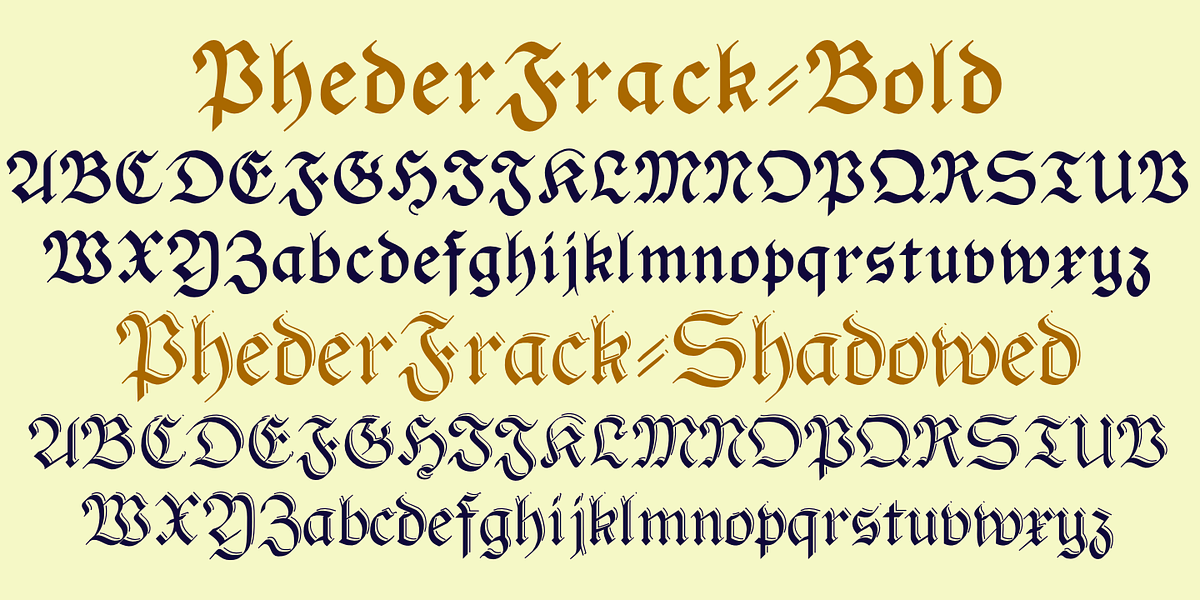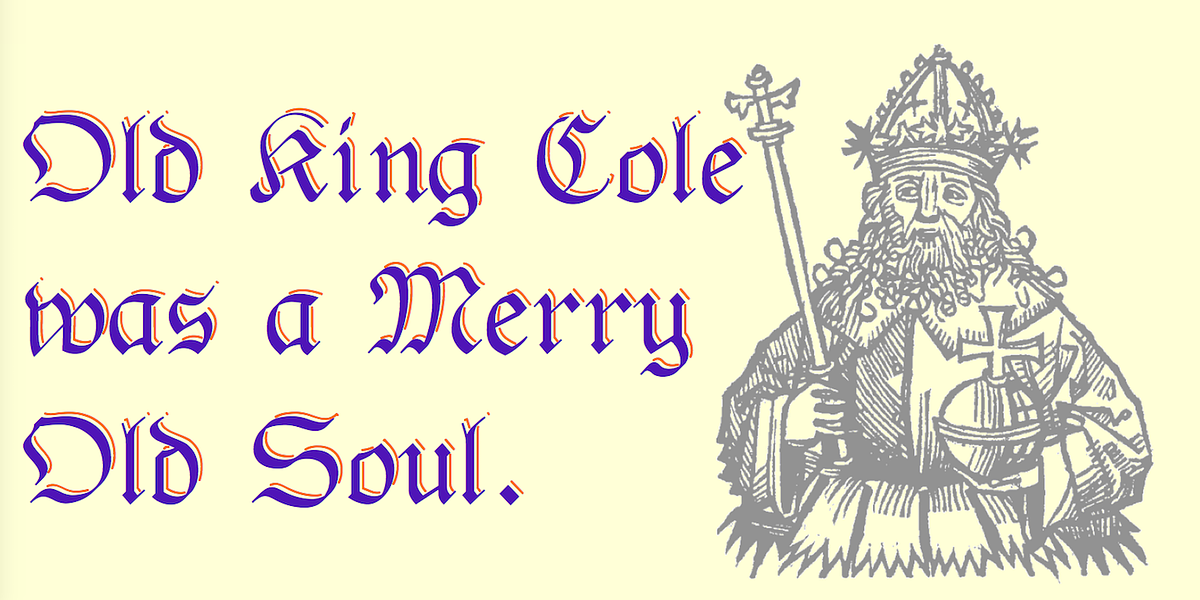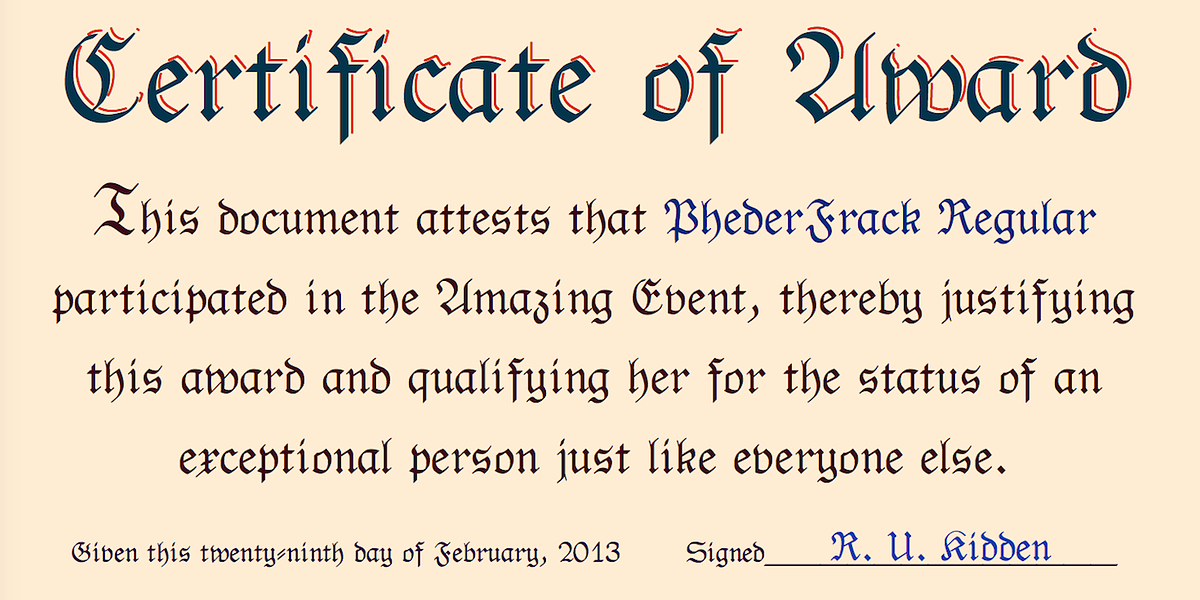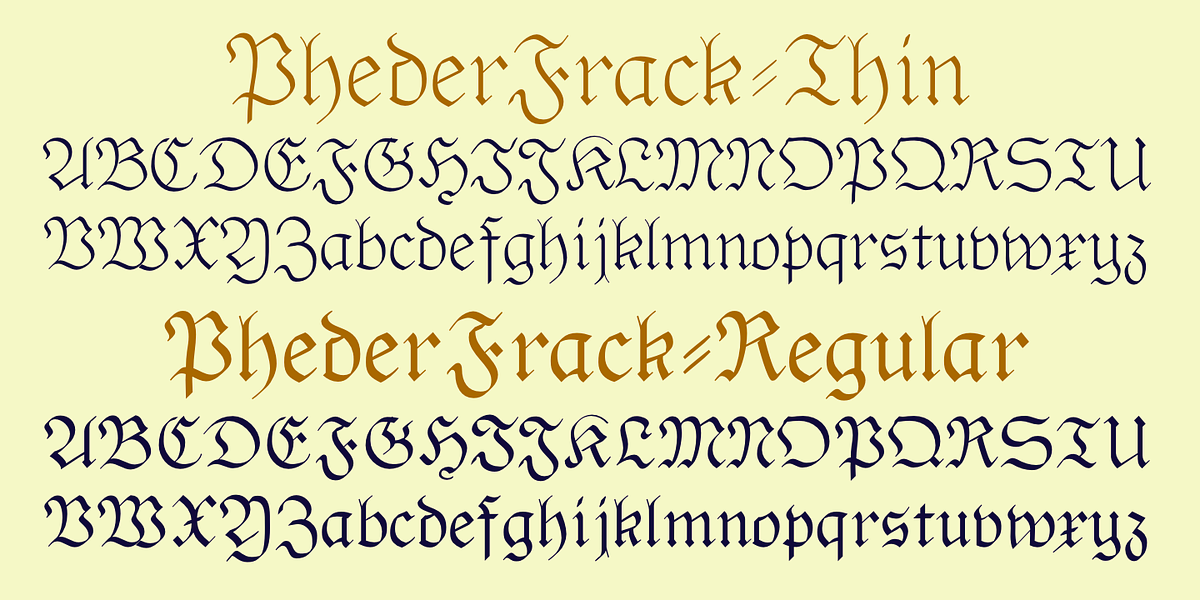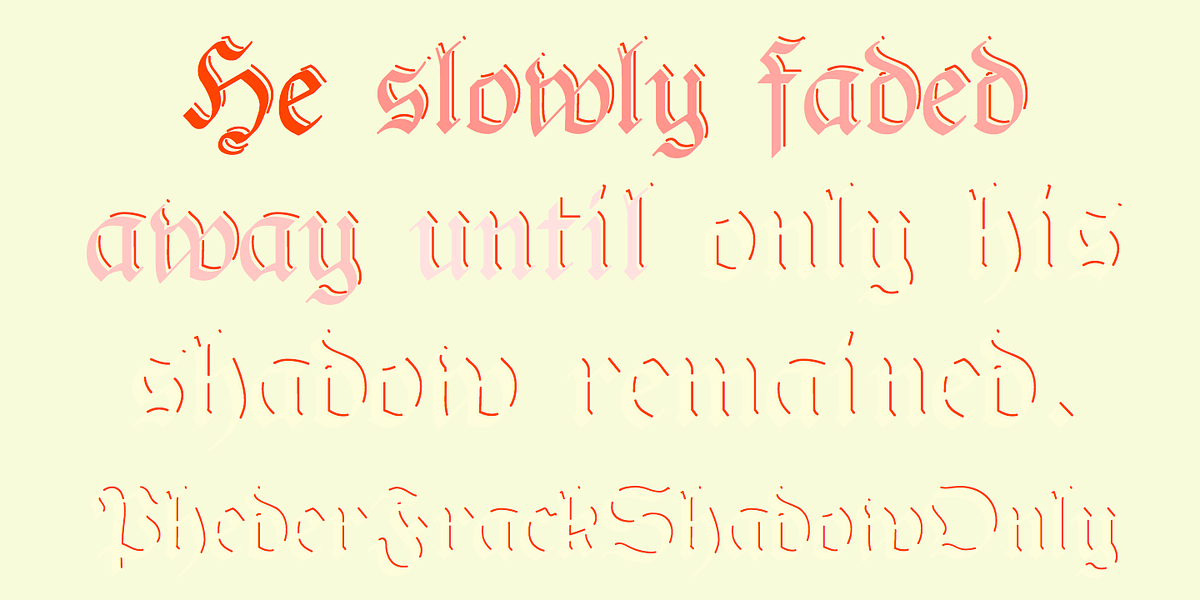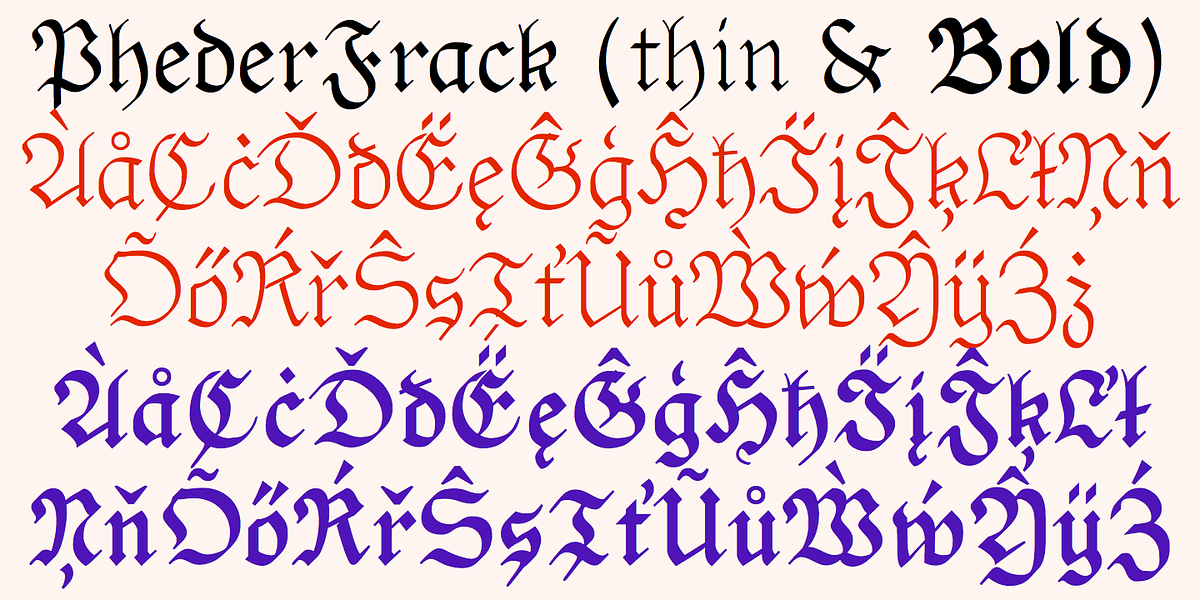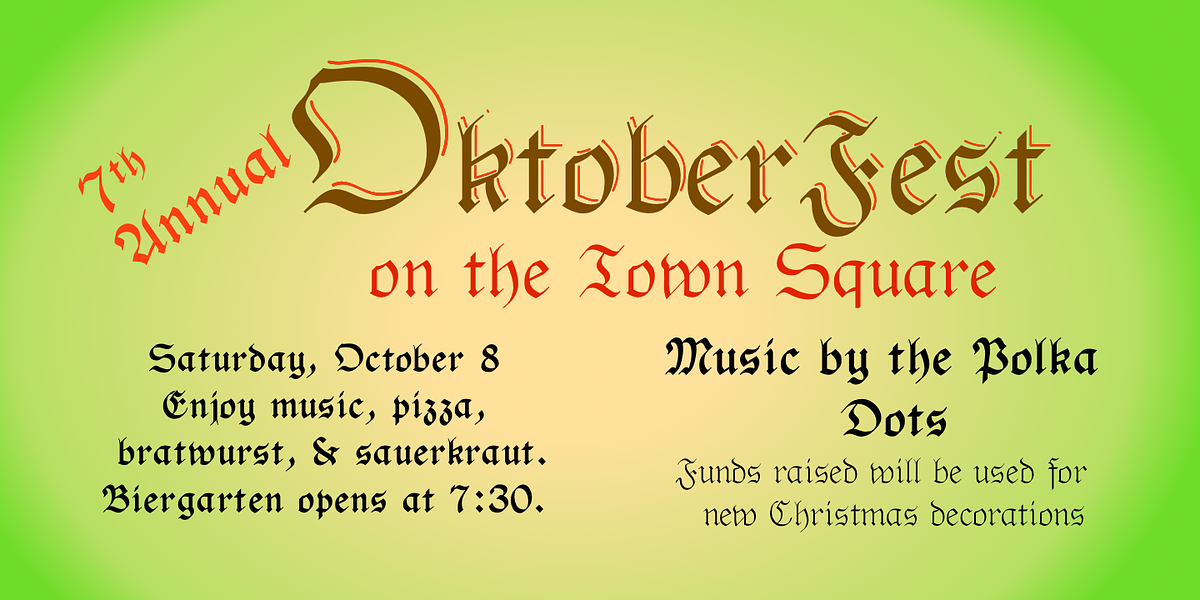
PhederFrack
PhederFrack is a calligraphic blackletter typeface inspired by traditional Old English scripts. It features three distinct weights, allowing for versatility in its application. A unique characteristic of this font is the inclusion of a shadowed version, where the shadow itself can be customized with a different color by overlaying it with a separate font file.